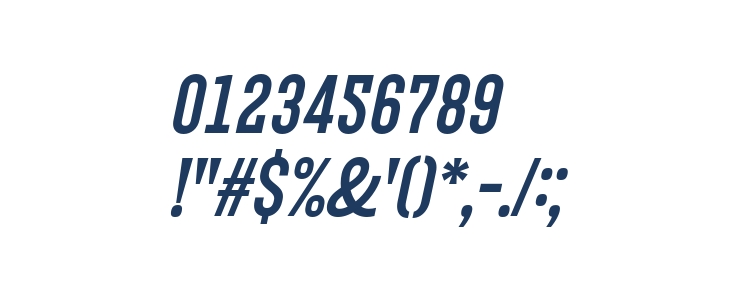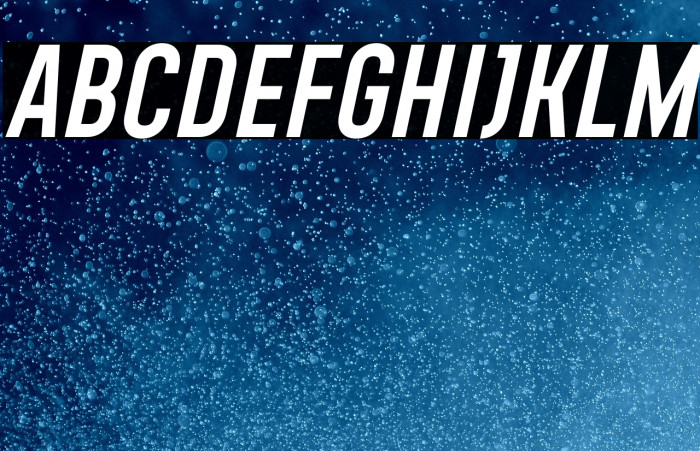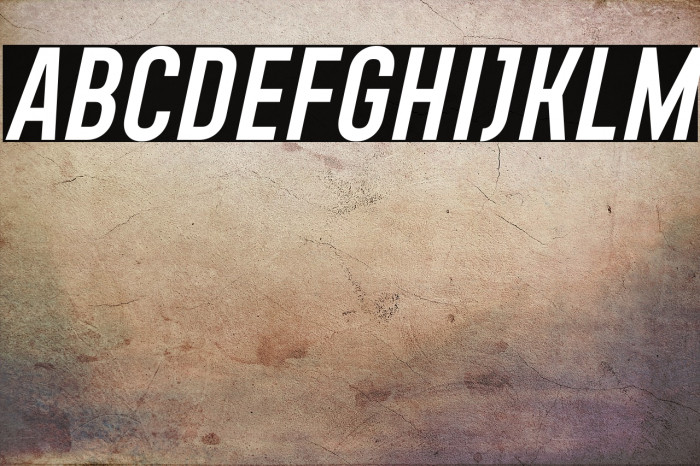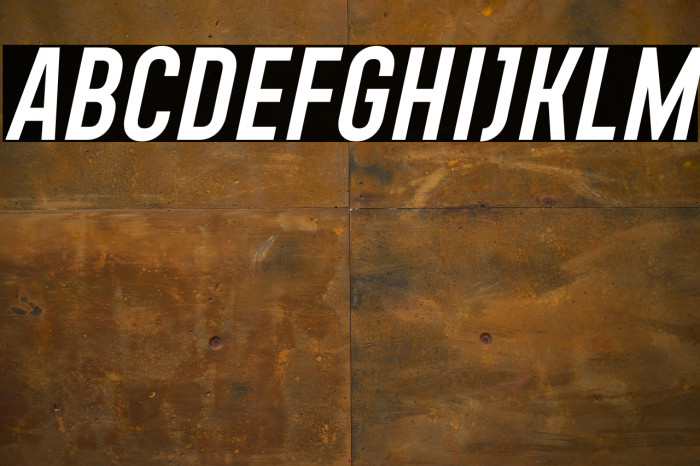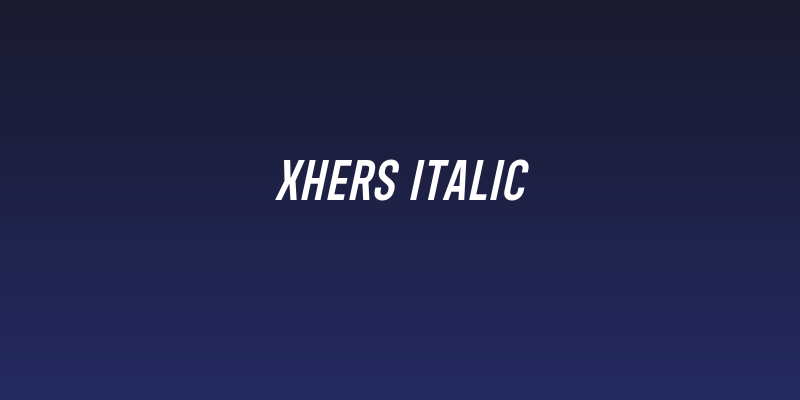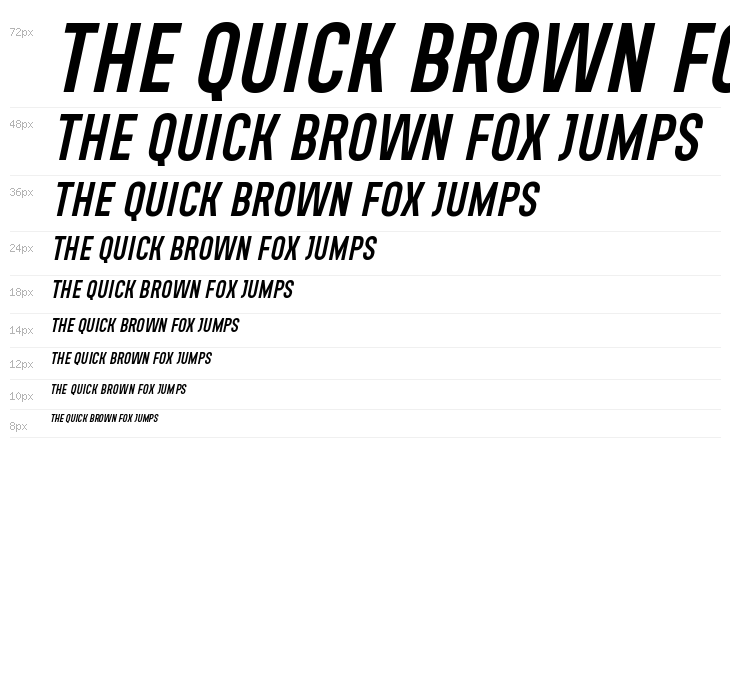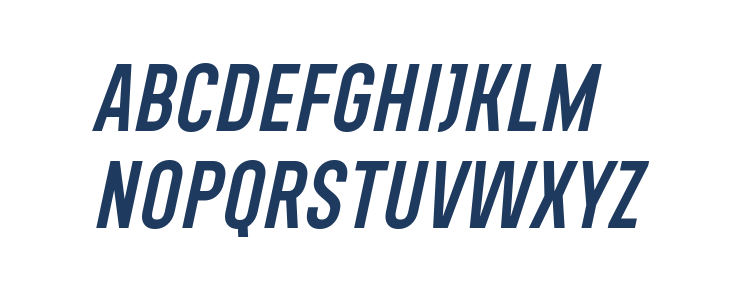
Xhers Italic Font
Xhers Italic Description
This font features a bold and italicized style, characterized by its strong and dynamic slant. The letters are tall and narrow, giving it a condensed appearance, which enhances its modern and sleek look. The strokes are consistent in weight, providing a uniform and cohesive feel across all characters. The numerals and special characters maintain the same boldness and slant, ensuring visual harmony. This font's design is both assertive and stylish, making it suitable for impactful and attention-grabbing text.
Proposed ProjectsIdeal for branding, advertising, headlines, and posters where a strong and modern impression is desired.